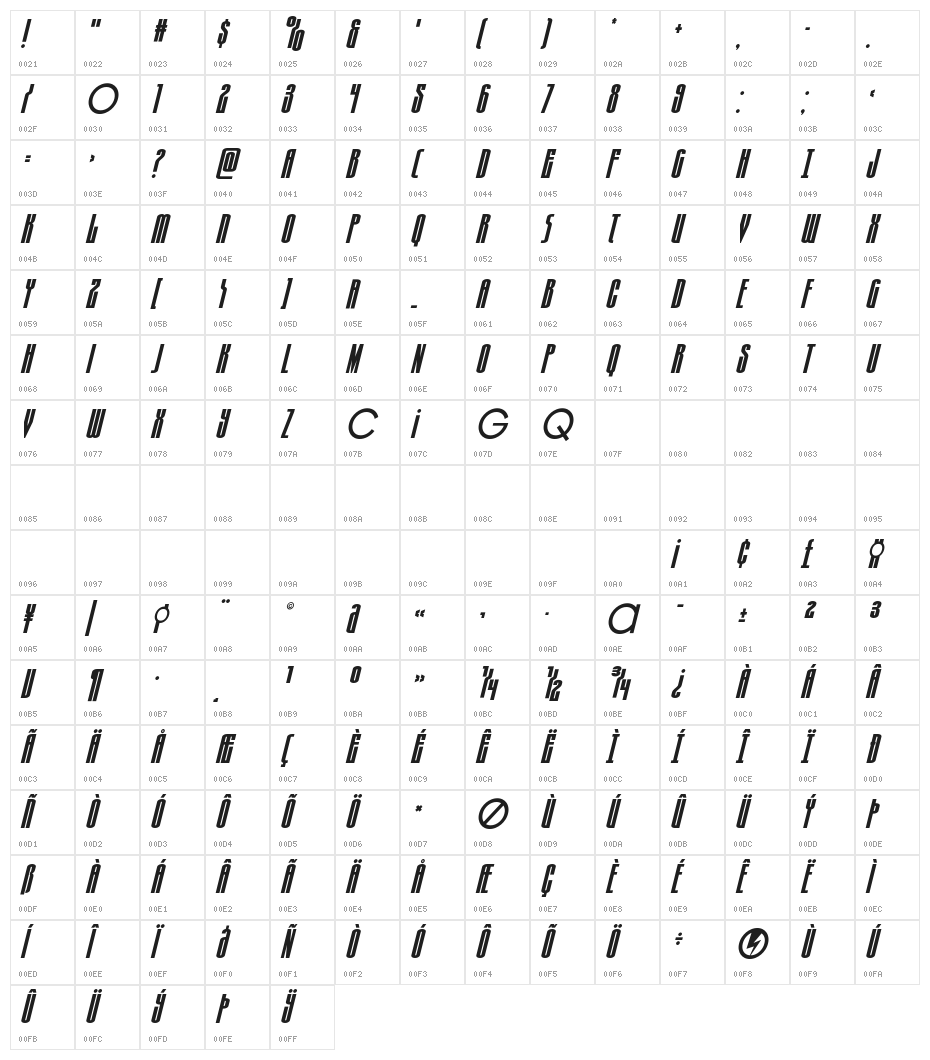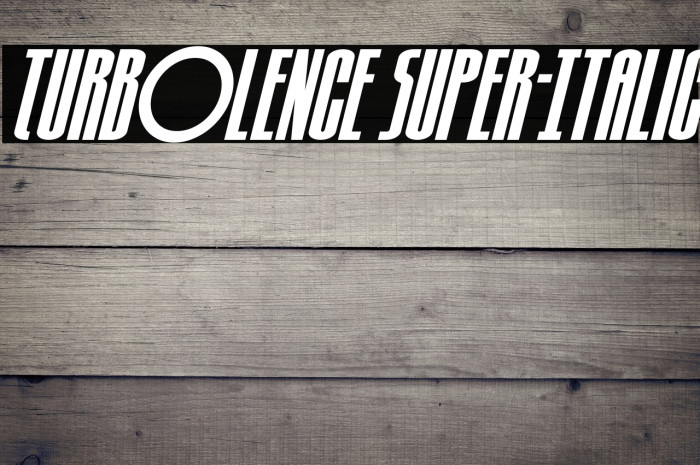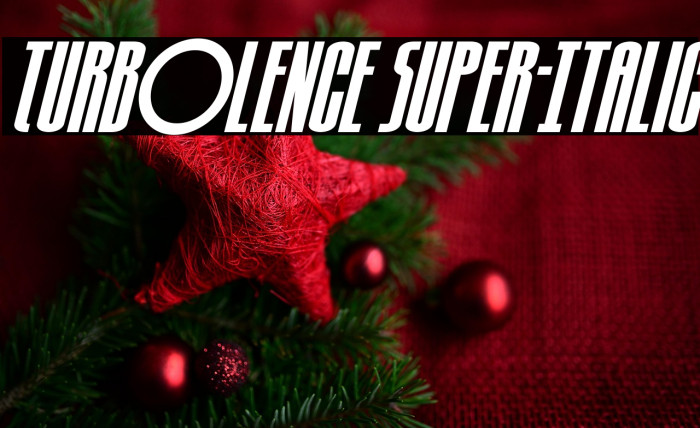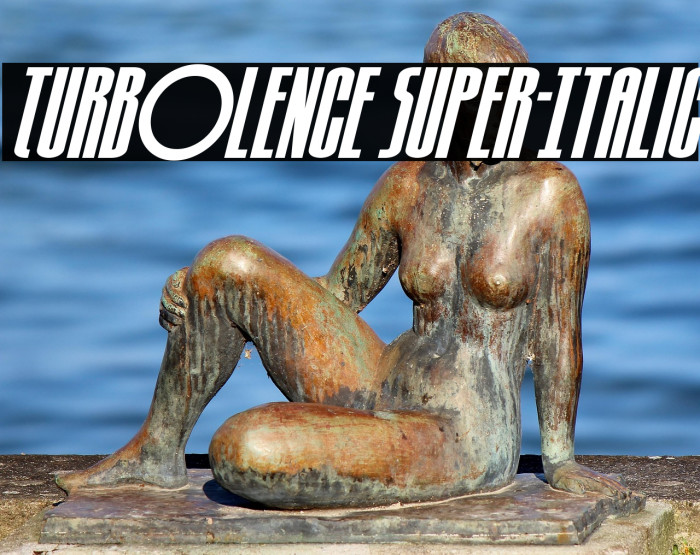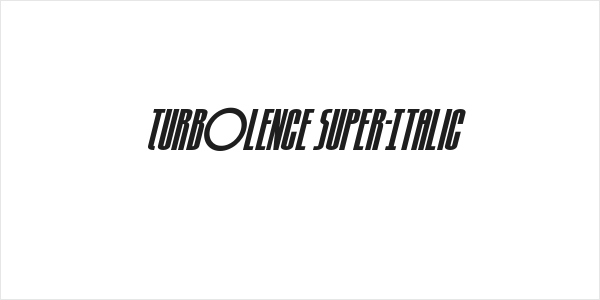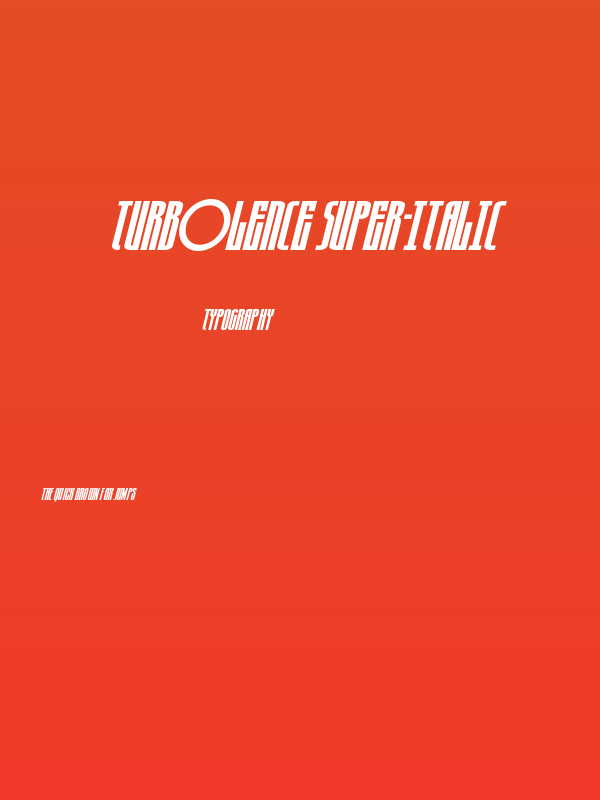
Turb0lence Super-Italic Font
Turb0lence Super-Italic Description
This font features a dynamic and energetic style with a pronounced italic slant, giving it a sense of motion and speed. The characters are bold and elongated, with sharp angles and a streamlined appearance. The uppercase and lowercase letters maintain a consistent width, contributing to a cohesive look. The numbers and special characters follow the same design principles, ensuring uniformity across all elements. The font's high contrast between thick and thin strokes enhances its boldness, making it stand out in any application.
| Proposed Projects | Ideal for sports branding, automotive advertisements, dynamic posters, and any project requiring a sense of speed and energy. |